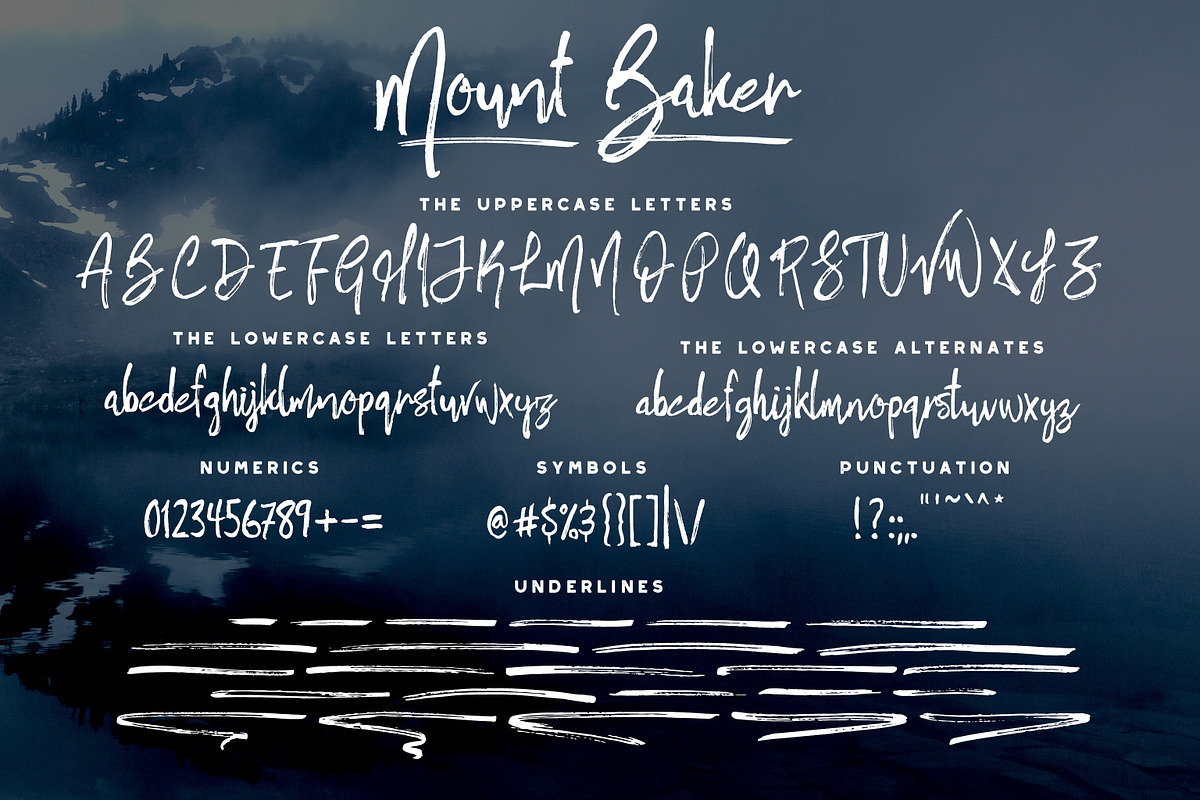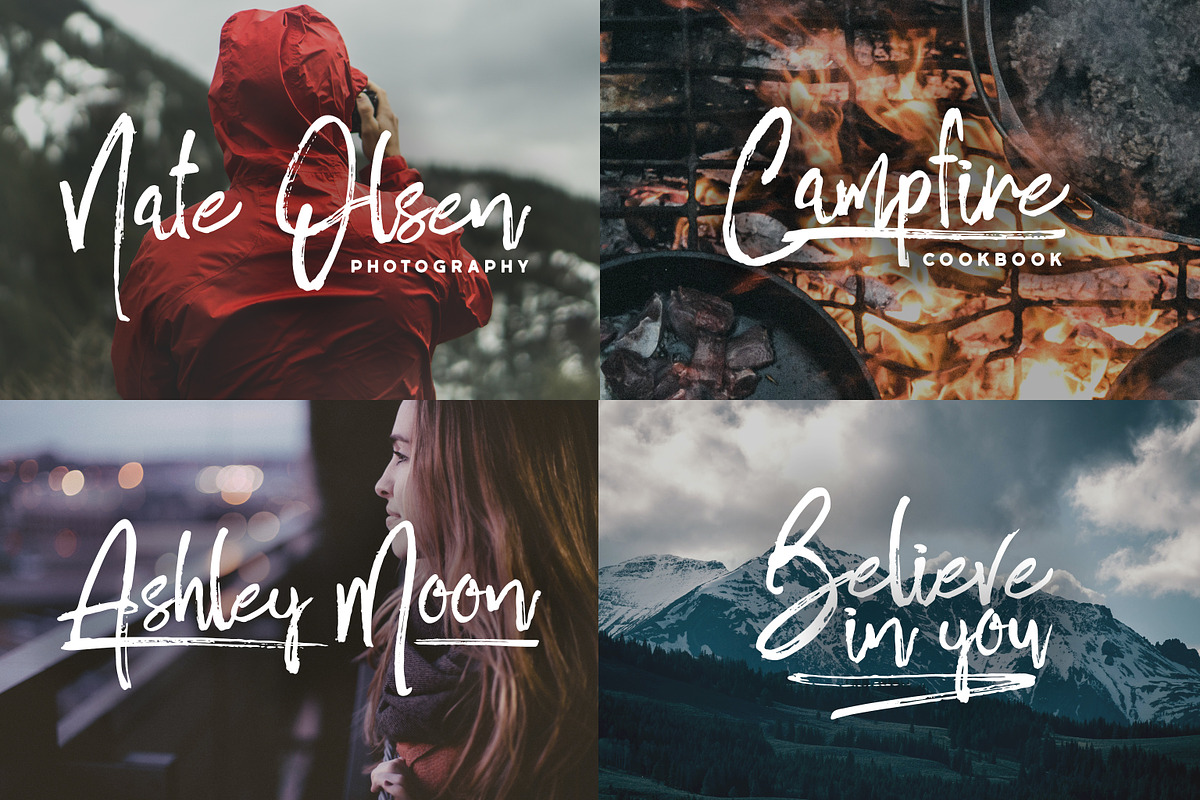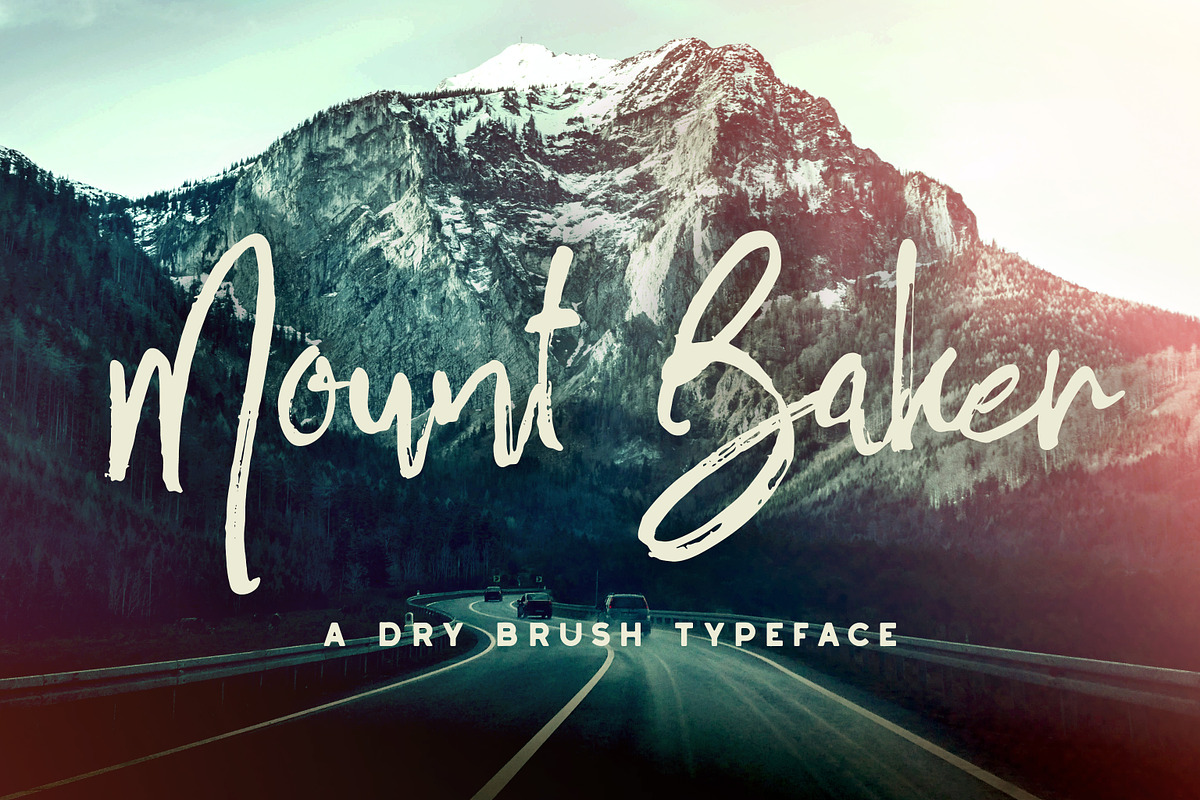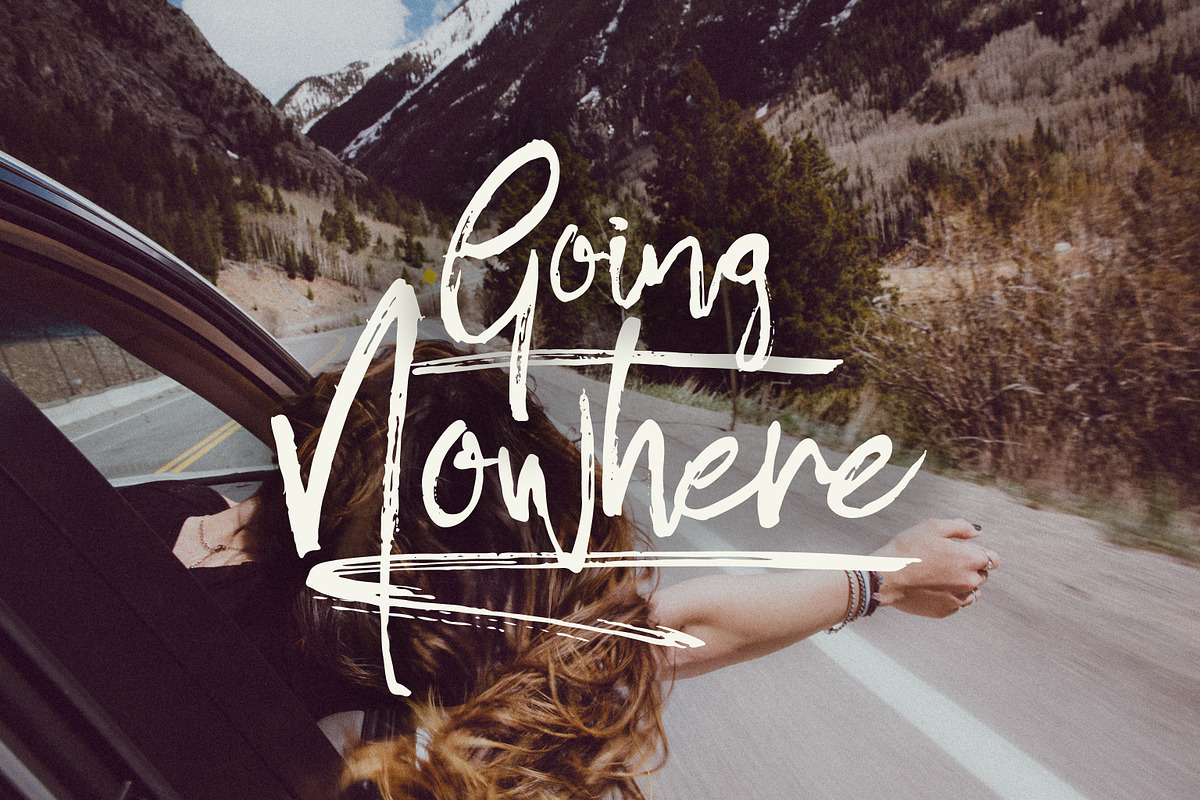
Mount Baker Brush Font
Mount Baker Brush Font by Greg Nicholls is a font selected for branding, posters, packaging, typography.
- Included in the font pack are also 26 underline swashes, to give your piece a little extra boost.
- Mount Baker is available in OTF format with Stylistic Alternates for all of the lowercase characters.
- In other words, if you don't want two lowercase letters looking the exact same, you have a second option.
- Each of the 26 lowercase characters match up with a different hand drawn underline, making the font file quick and easy to use.
Why Mount Baker Brush Font is worth a look
Mount Baker Brush Font by Greg Nicholls fits naturally into Branding, posters, packaging, typography.